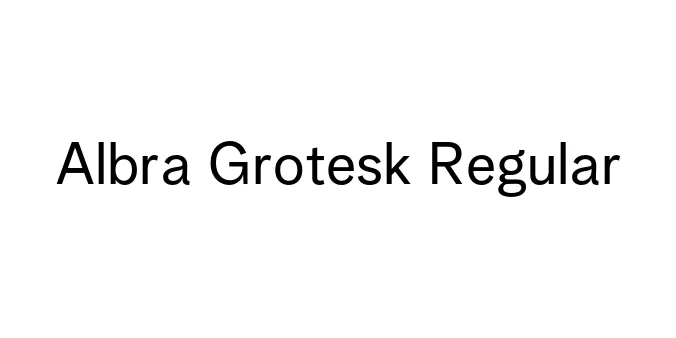
Albra Grotesk Regular
Designed by Bumbum Type
Albra Grotesk Regular is a contemporary sans-serif typeface that stands as a functional and refined member of the larger Albra font family. Designed with a focus on geometric clarity and high-contrast details, it offers a sophisticated alternative to traditional grotesque fonts. The typeface balances modern aesthetics with timeless legibility, making it a staple for designers who require a font that is both expressive and highly readable across various mediums.
The Regular weight is meticulously crafted to perform exceptionally well in both print and digital environments. With its open apertures and balanced stroke widths, Albra Grotesk Regular provides a neutral yet distinct voice for editorial content, corporate branding, and user interface design. It represents a bridge between mid-century Swiss design principles and the requirements of modern-day digital typography.
Albra Grotesk Regular Best Uses
Ideal for UI/UX elements and clean body text on websites.
Excellent for creating modern and professional corporate identities.
Perfect for magazine layouts, book design, and long-form reading.
Highly effective for social media graphics and digital marketing campaigns.